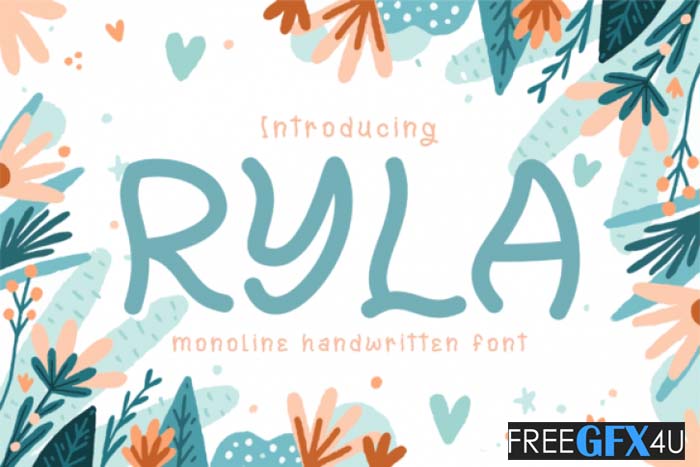
Ryla Font Free Download
Here in this post, you’ll get a free download link of the Ryla Font compress file from below. Ryla is a cute and whimsical handwritten font. It looks beautiful on a variety of designs requiring a personalized style, such as wedding invitations, thank you cards, letters, greeting cards, logos, and so on. You Can Also Download Gilbes Font.
Ryla Font